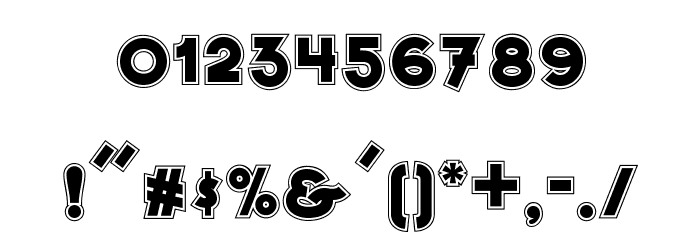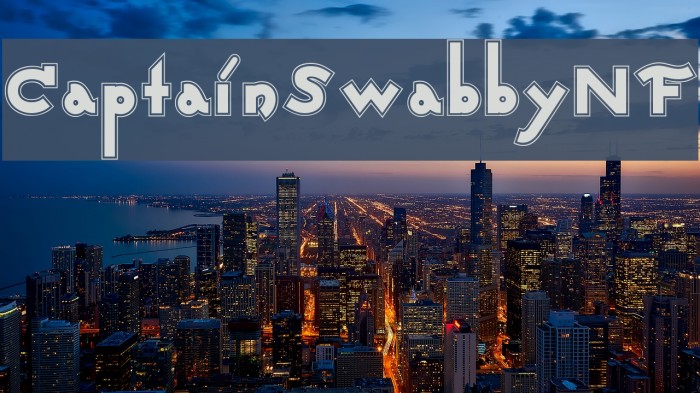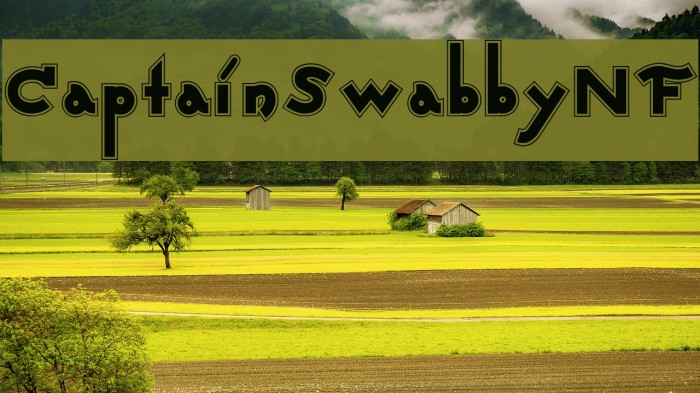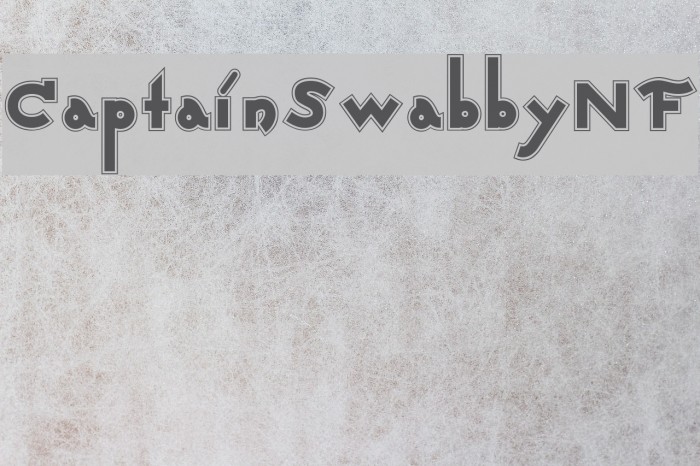
CaptainSwabbyNF Font
This font features a bold and playful design with a distinct outline that gives it a three-dimensional appearance. The characters are wide and have a strong presence, making them ideal for attention-grabbing headlines. The uppercase letters have a geometric style with sharp angles and clean lines, while the lowercase letters maintain a consistent boldness with slightly rounded edges. The numerals and special characters are designed to match the overall aesthetic, ensuring a cohesive look across all text elements. This font's unique style makes it suitable for creative projects that require a fun and engaging visual impact.
A bold, playful font with a three-dimensional outline and geometric style.
- Proposed Projects: Ideal for posters, logos, children's books, and any project needing a fun, bold typeface.
- Width: Expanded
- Overall Style: Playful, Modern